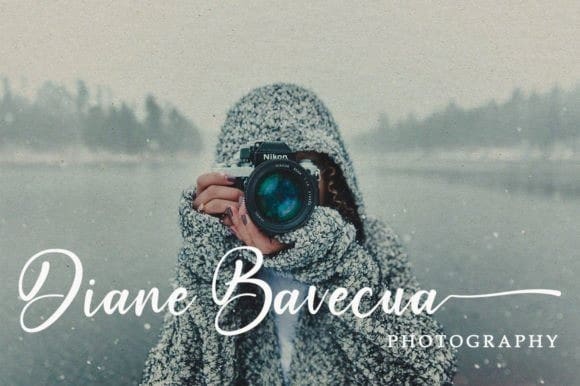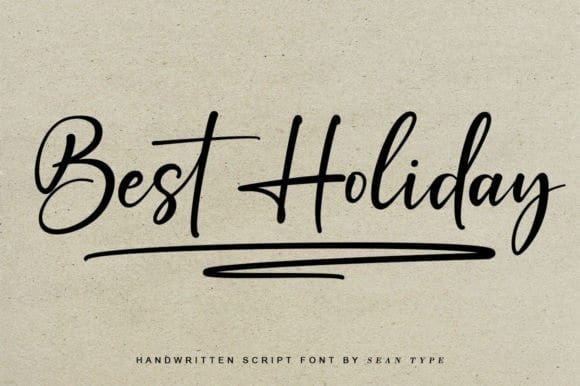
Best Holiday Font
Best Holiday Font, This script font is simple but passionate. Best Holiday offers a smooth flow of letters with a strong sense of beauty. Its classic calligraphic forms give a subtle but distinctive feel. Perfect for any creative project, this font offers a timeless elegance.